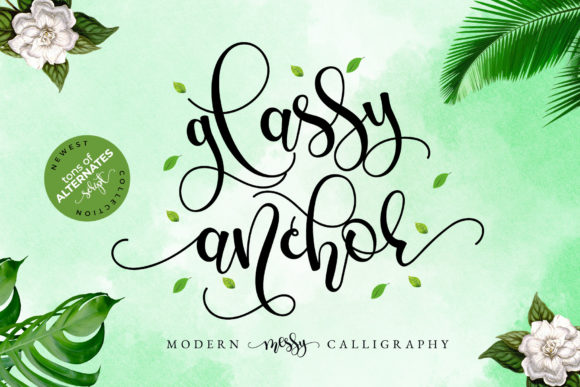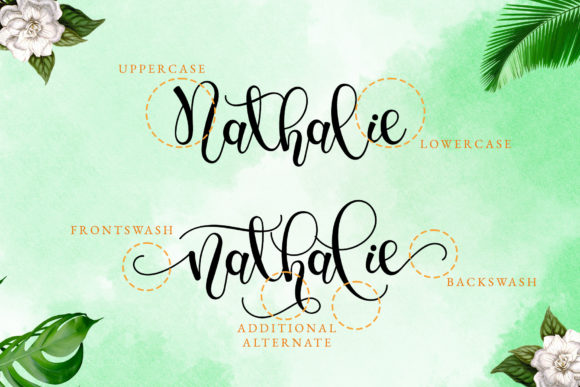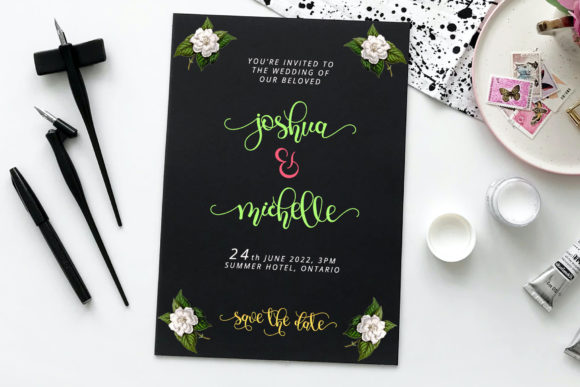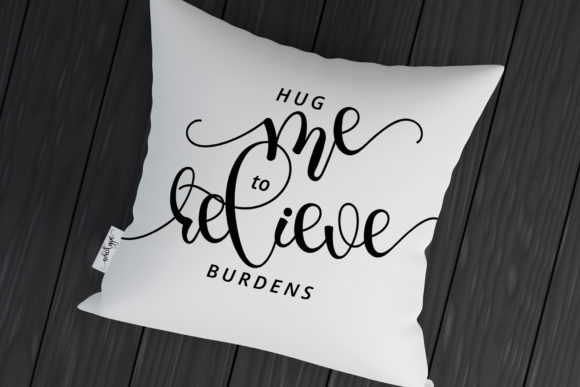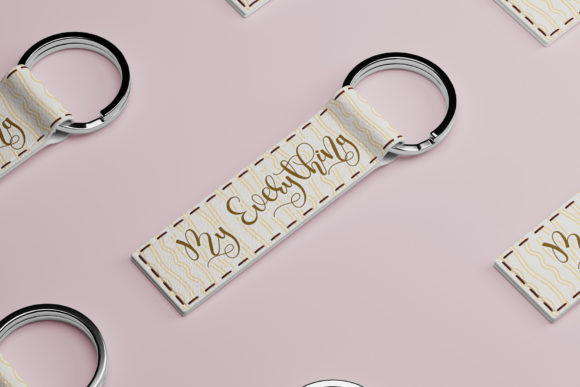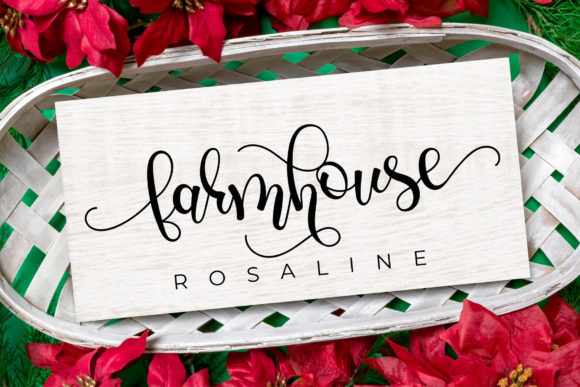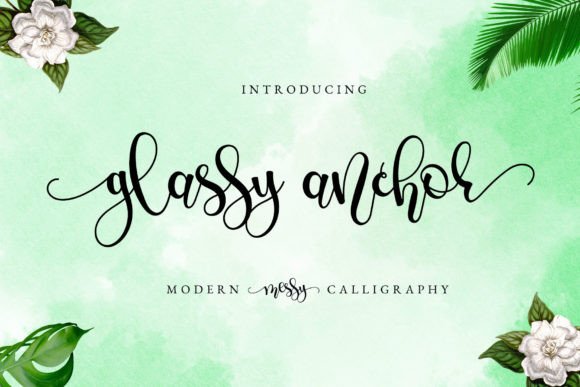
Introducing Glassy Anchor Font: Elevate Your Designs with Elegance
Are you on the hunt for a font that exudes sophistication, elegance, and a touch of whimsy? Look no further than the Glassy Anchor Font, a stunning script font that is sure to capture your heart. With its chic lettering and graceful curves, this font is perfect for creating a wide range of designs, from wedding invitations and stationary art to social media posts and more.
The Beauty of Glassy Anchor Font
Glassy Anchor Font is a ravishing script font that boasts a unique and eye-catching style. Its elegant curves and refined lines make it perfect for designs that require a touch of sophistication and glamour. Whether you’re a designer, crafty DIY enthusiast, or social media influencer, this font is sure to elevate your creations and leave a lasting impression on your audience.
One of the best things about Glassy Anchor Font is its versatility. This font can be used for a wide range of design projects, including:
- Wedding invitations and stationery: Create beautiful and elegant wedding invitations, save-the-date cards, and other stationery items that will leave a lasting impression on your guests.
- Stationary art: Use Glassy Anchor Font to create stunning stationary art, including greeting cards, gift tags, and journal pages.
- Social media posts: Add a touch of elegance to your social media posts, including Instagram captions, Facebook updates, and Twitter headers.
- Branding and packaging: Use Glassy Anchor Font to create eye-catching branding and packaging designs that will help your business stand out.
Why Choose Glassy Anchor Font?
So why choose Glassy Anchor Font over other script fonts on the market? Here are just a few reasons:
- Unique and eye-catching style: Glassy Anchor Font boasts a unique and stylish design that will help your creations stand out.
- Elegant and sophisticated: This font exudes elegance and sophistication, making it perfect for designs that require a touch of glamour.
- Versatile: Glassy Anchor Font can be used for a wide range of design projects, from wedding invitations to social media posts.
Tips for Using Glassy Anchor Font
Here are a few tips for using Glassy Anchor Font to create stunning designs:
- Experiment with different sizes and colors: Play around with different sizes and colors to find the perfect combination for your design.
- Use it with other fonts: Pair Glassy Anchor Font with other fonts to create a unique and eye-catching design.
- Take advantage of glyphs and ligatures: Use the font’s built-in glyphs and ligatures to add a touch of elegance and sophistication to your design.
- Keep it simple: Don’t be afraid to keep your design simple and elegant. Sometimes, less is more.
In conclusion, Glassy Anchor Font is a stunning script font that is sure to elevate your designs and leave a lasting impression on your audience. With its elegant curves, refined lines, and PUA encoding, this font is perfect for creating a wide range of designs, from wedding invitations to social media posts. So why wait? Fall for the ravishing style of Glassy Anchor Font and take your designs to the next level!